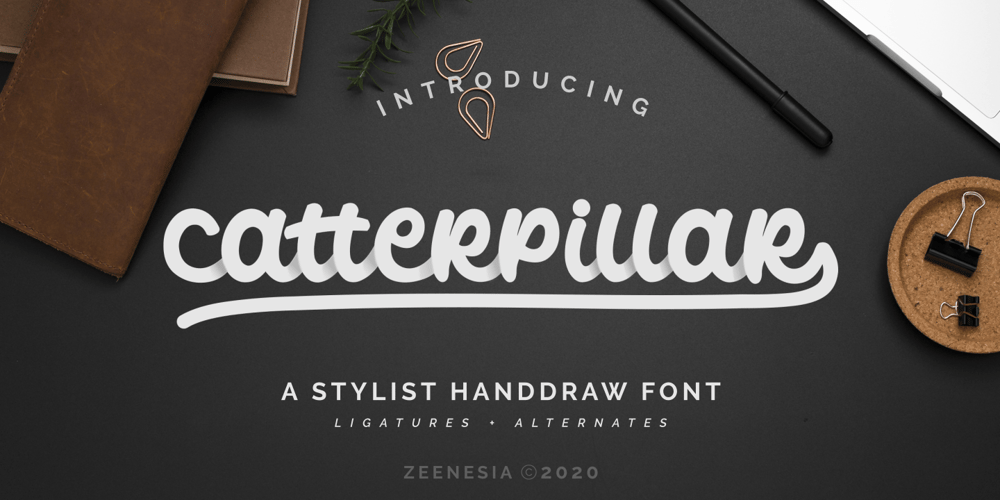
Catterpillar Font Family was designed by Zeenesia Studio and published by Zeenesia Studio. Catterpillar contains 1 styles and family package options. Catterpilar is a stylist handdraw font.The Catterpilar font works great for any design project, be it web, printing, logotype, posters, badges, signage, product, brand, t-shirt design, etc. Catterpilar font contains almost 215 glyphs with several OpenType Features; Stylistic Alternate, Standard Ligature & Multylangual support. The OpenType Feature can be used to create your own custom typography of your design. The Catterpilar font is a beautiful example of stylist fonts.Please contact me for more information about the font terms and condition.